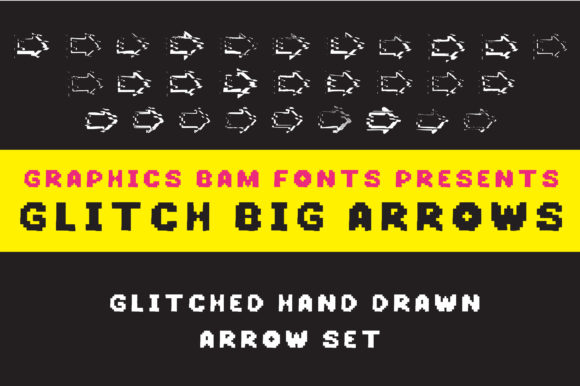
Introducing Glitch Big Arrows Font: Add a Distorted and Trendy Touch to Your Designs
In the world of typography, fonts play a crucial role in conveying the tone and aesthetic of a design. For designers and crafters looking to add a unique and trendy touch to their work, Glitch Big Arrows Font is an excellent choice. This cool, pixelated dingbats font is designed to bring a distorted and edgy vibe to your designs, making it perfect for projects that require a bold statement.
What is Glitch Big Arrows Font?
Glitch Big Arrows is a uniquely shaped font that features large, pixelated arrows and symbols. Its glitchy, distorted design gives it a trendy and modern look that’s perfect for a variety of design applications. The font is categorized as a dingbats font, which means it’s primarily used for decorative purposes, such as adding visual interest to headings, titles, and graphics.
Key Features of Glitch Big Arrows Font
- Pixelated Design: The font features a pixelated design that gives it a retro, nostalgic feel.
- Unique Arrows and Symbols: The font includes a range of unique arrows and symbols that can be used to add visual interest to your designs.
- Distorted and Glitchy: The font’s distorted and glitchy design makes it perfect for designs that require a bold, edgy look.
- Trendy and Modern: The font’s trendy and modern design makes it perfect for designers and crafters who want to stay ahead of the curve.
How to Use Glitch Big Arrows Font in Your Designs
Glitch Big Arrows Font can be used in a variety of design applications, including:
- Graphic Design: Use the font to add visual interest to your graphics, such as logos, icons, and infographics.
- Digital Crafting: Add a trendy touch to your digital crafts, such as planners, journals, and printable art.
- Web Design: Use the font to add a bold, edgy look to your website headers, titles, and navigation menus.
- Social Media Graphics: Use the font to create eye-catching social media graphics, such as quotes, posters, and flyers.
Benefits of Using Glitch Big Arrows Font
By using Glitch Big Arrows Font in your designs, you can:
- Add Visual Interest: The font’s unique design and glitchy effect can help add visual interest to your designs.
- Stand Out from the Crowd: The font’s trendy and modern design can help your designs stand out from the crowd.
- Convey a Bold Message: The font’s bold and edgy design can help convey a bold message or attitude.
Tips for Using Glitch Big Arrows Font
Here are some tips for using Glitch Big Arrows Font in your designs:
- Use it Sparingly: Use the font sparingly to avoid overwhelming your design.
- Pair it with Other Fonts: Pair the font with other fonts to create a unique and interesting contrast.
- Experiment with Colors: Experiment with different colors to find the perfect combination that works with your design.
Glitch Big Arrows Font is a cool, uniquely shaped font that’s perfect for designers and crafters looking to add a distorted and trendy touch to their designs. With its pixelated design, unique arrows and symbols, and glitchy effect, this font is sure to make a bold statement. By using Glitch Big Arrows Font in your designs, you can add visual interest, stand out from the crowd, and convey a bold message. So why not give it a try and see how it can elevate your designs?